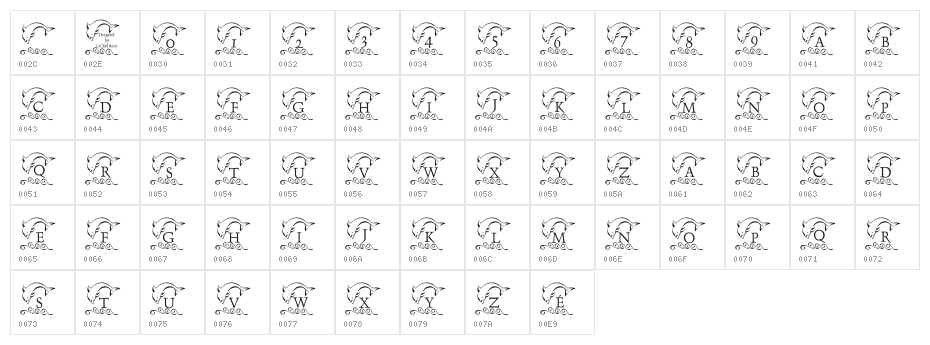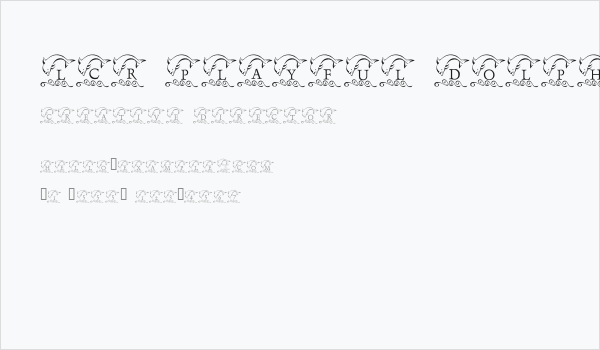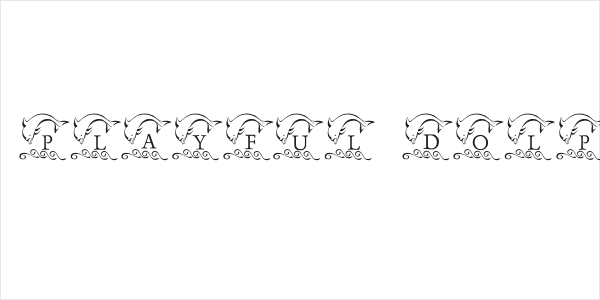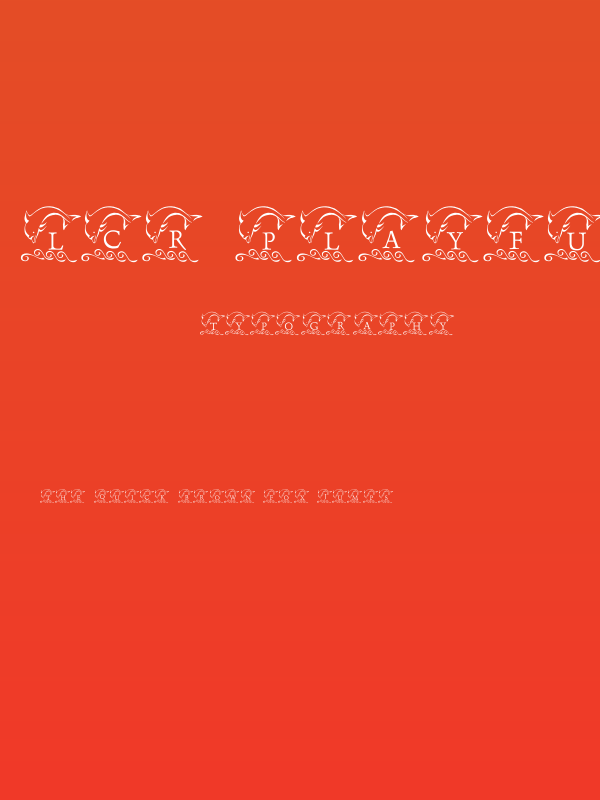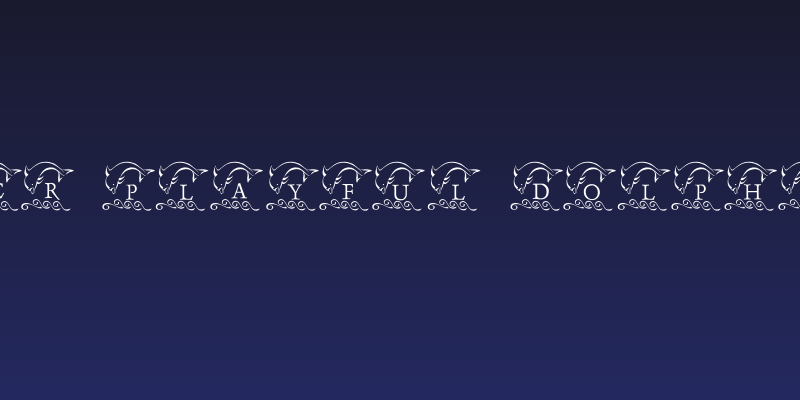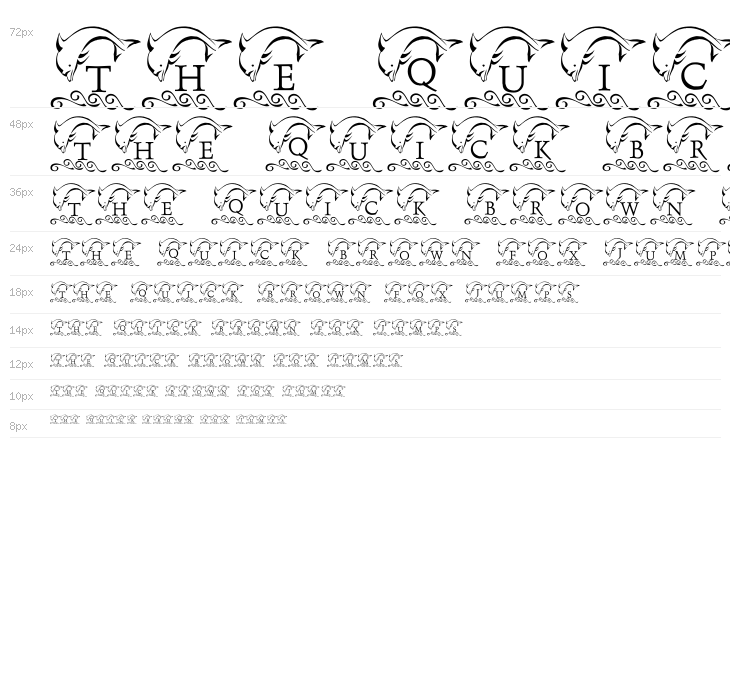
LCR Playful Dolphin Font
LCR Playful Dolphin Description
This decorative font features playful dolphin illustrations integrated with each character, creating a whimsical and unique style. The dolphins are positioned above each letter and number, adding a sense of movement and fun. The characters themselves are serif, with elegant curves and a classic touch, complemented by the dynamic dolphin design. This font is perfect for projects that require a light-hearted and creative aesthetic, such as children's books, playful branding, or ocean-themed events. The combination of traditional serif elements with the lively dolphin motif makes it stand out as both sophisticated and entertaining.
| Proposed Projects | Ideal for children's books, playful branding, ocean-themed events, and creative invitations. |